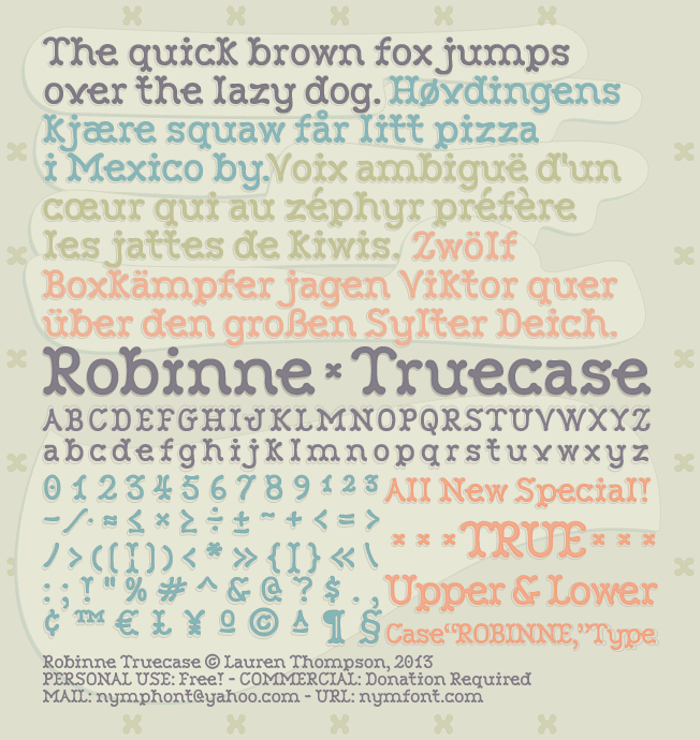
Robinne Truecase Font
This font is the traditional version of the all-caps font "Robinne," complete with "true" lowercase literals. I hope you likes. :)